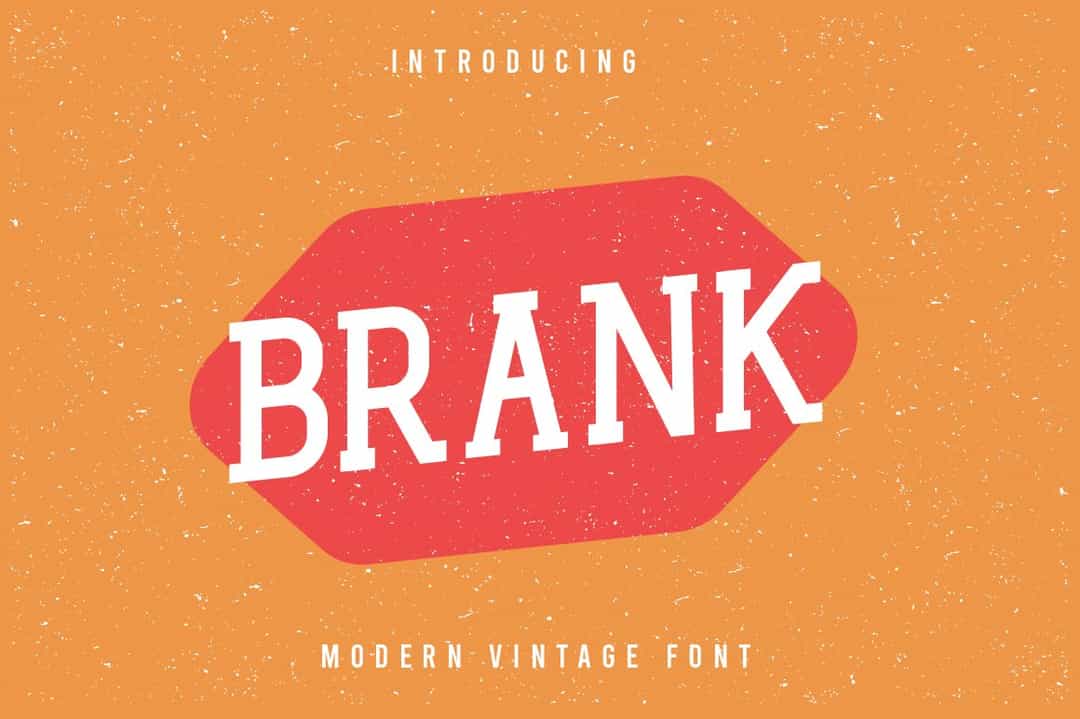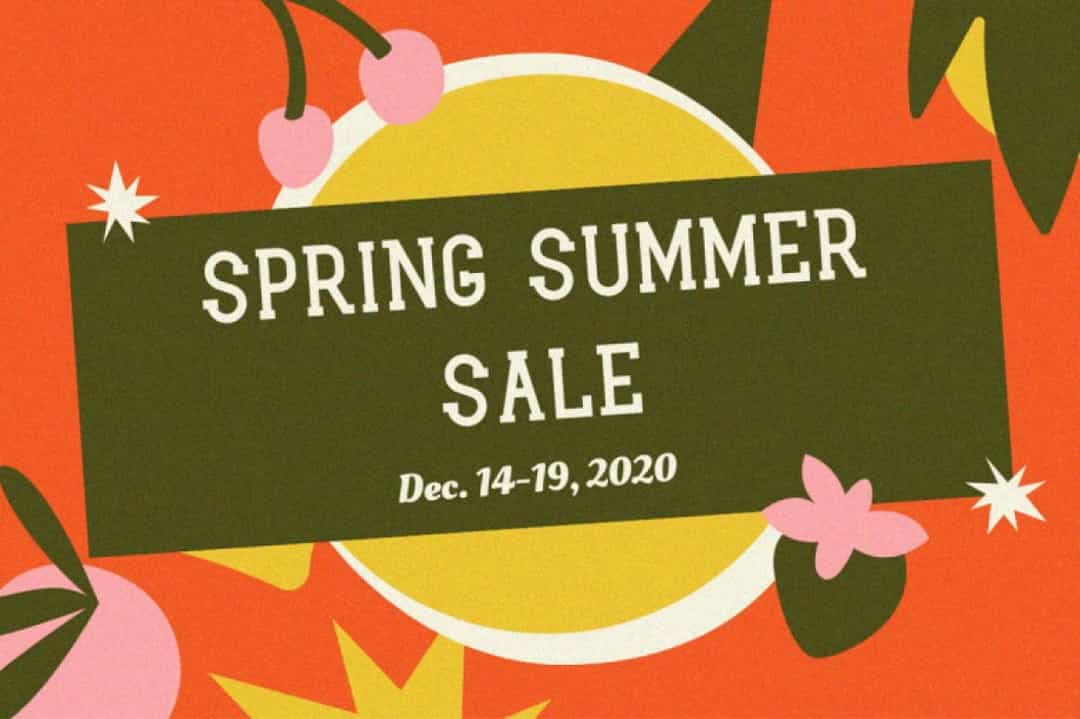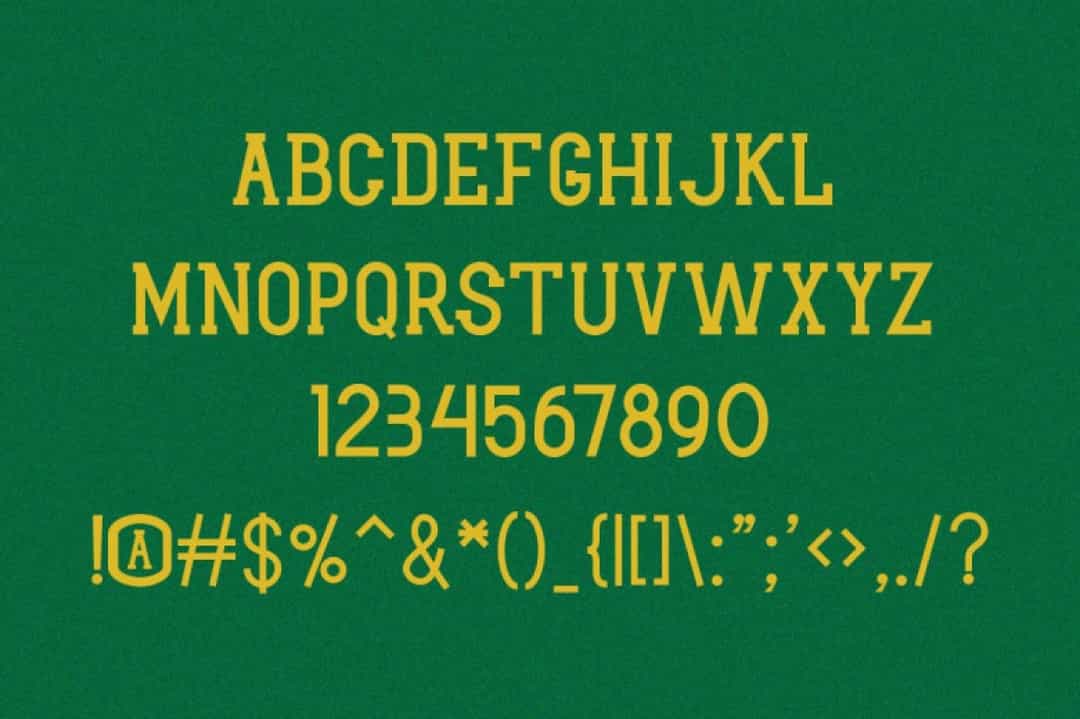
Brank is a slab serif font inspired by vintage look with traditional elements, making it suitable for 70s or 60s design projects. Ideal for jersey poster, athletic branding, logo design and clothing packaging design as well as magazine magazines packaging Brank provides layout designs.